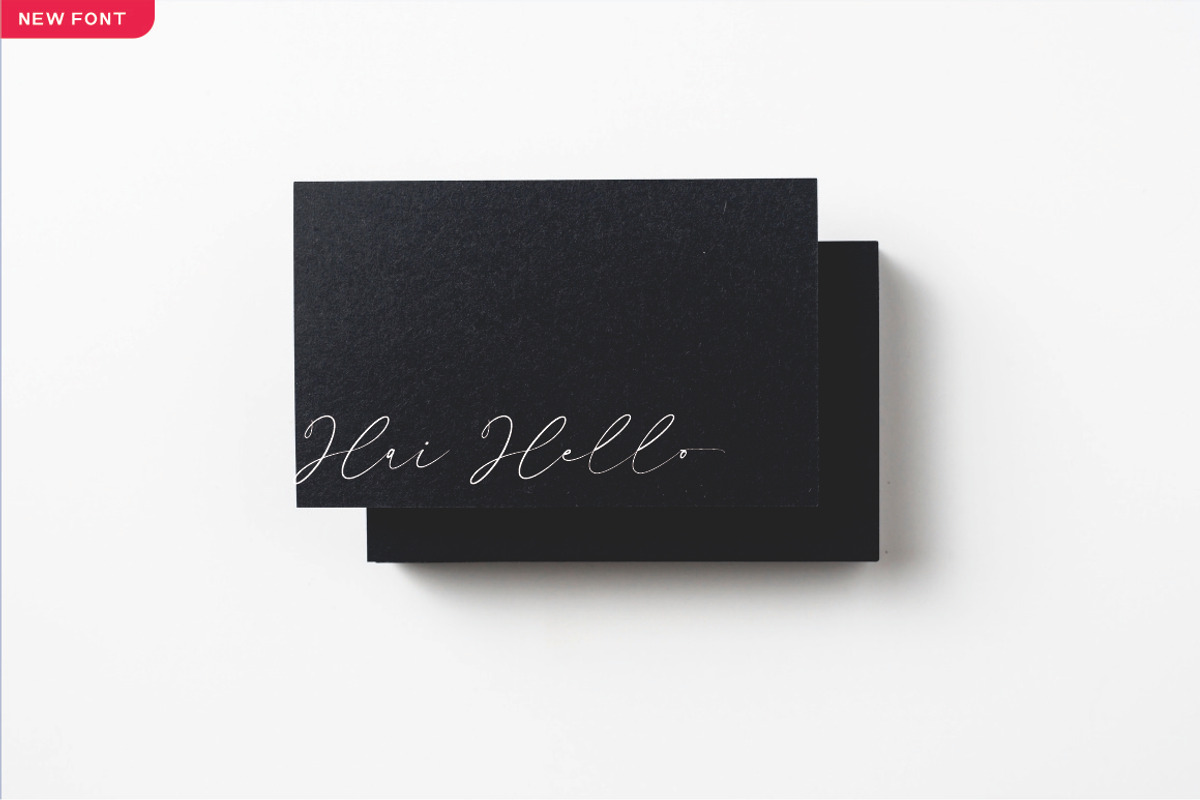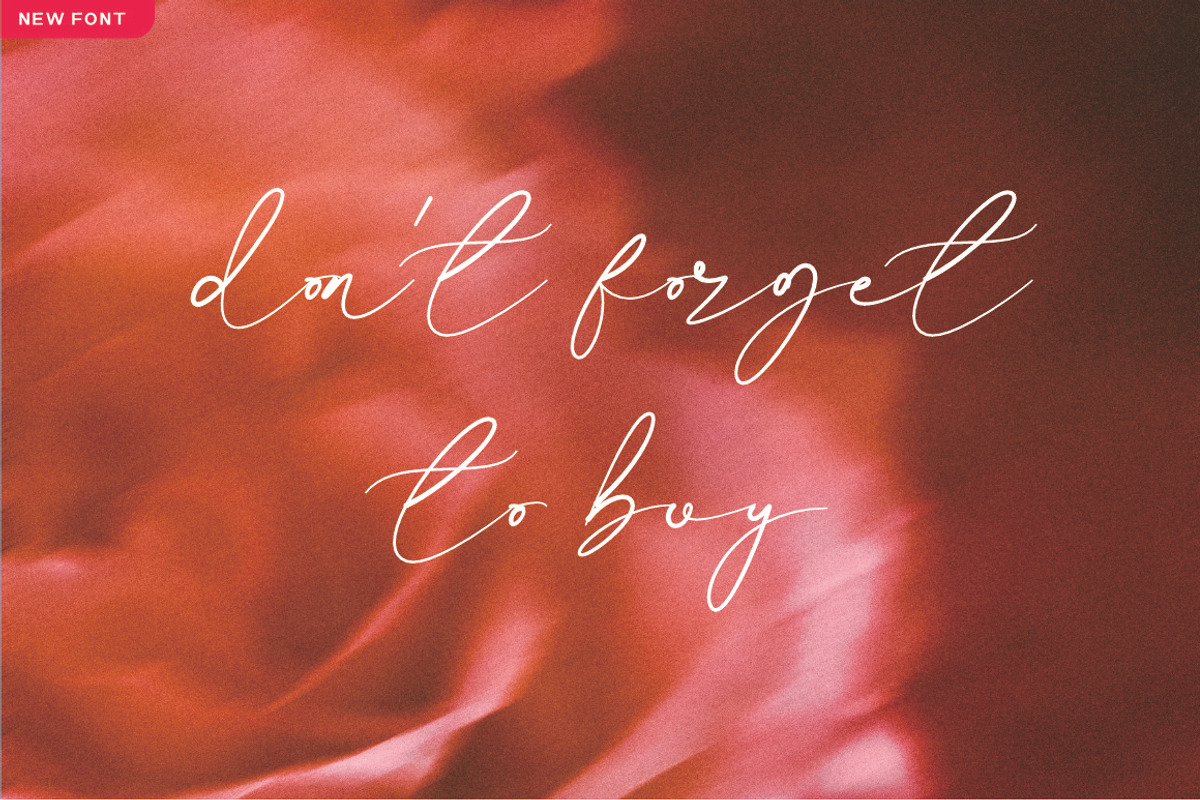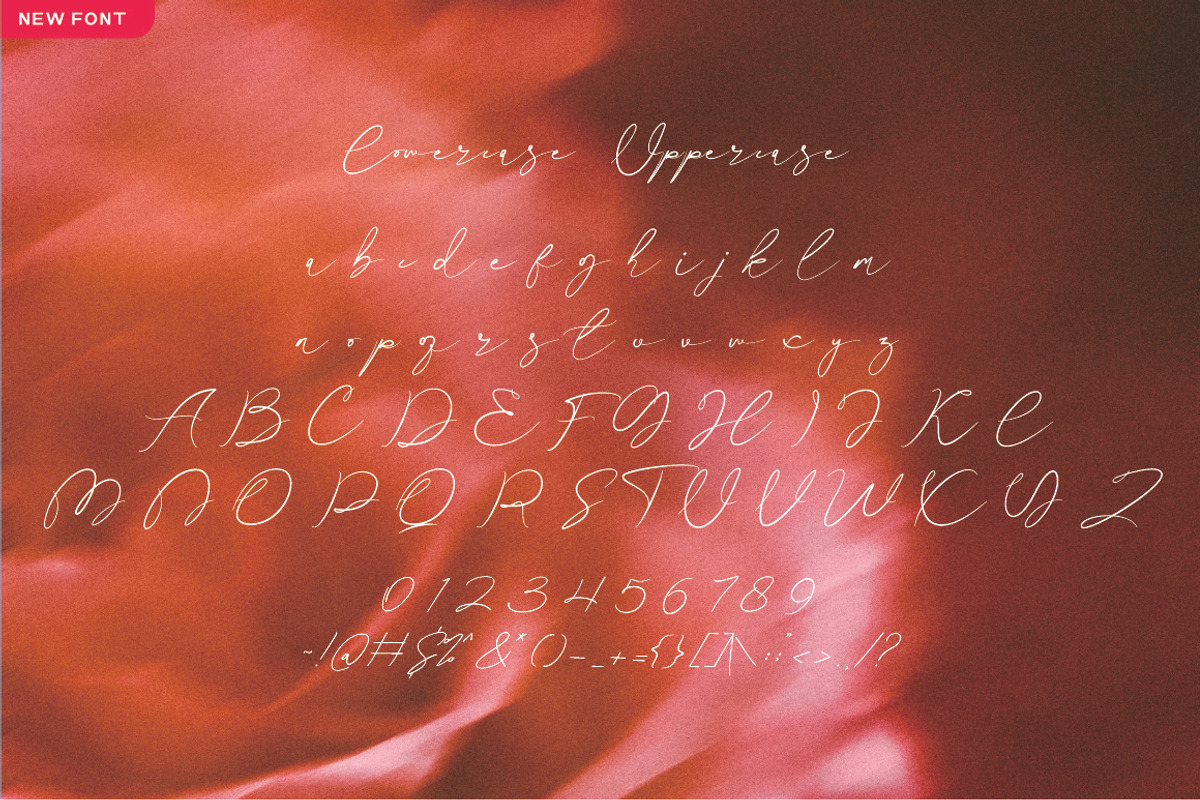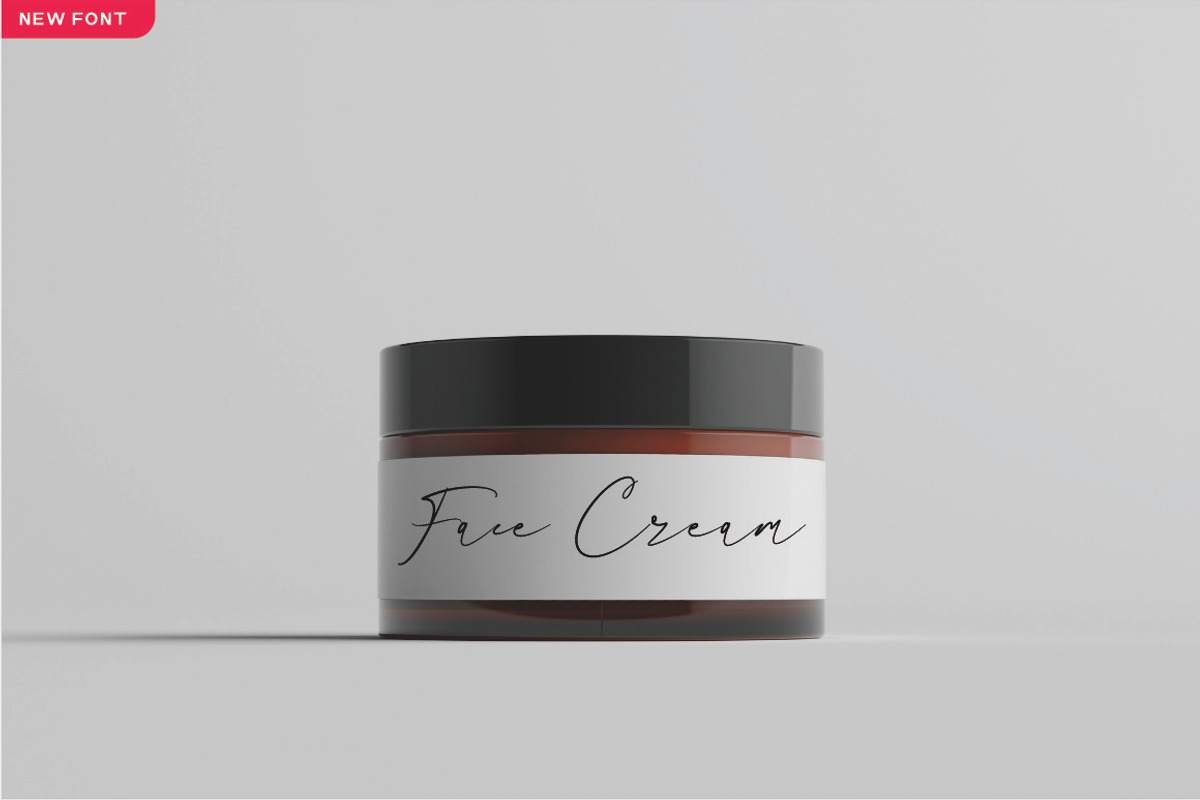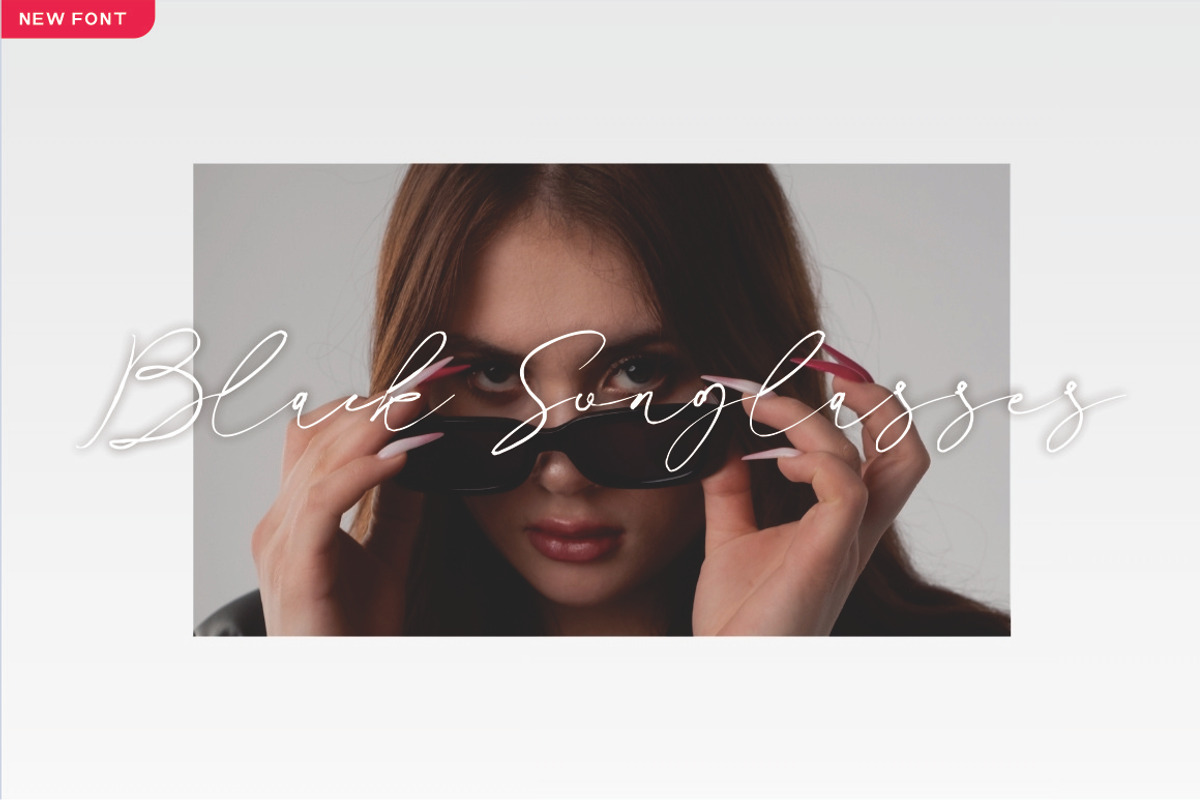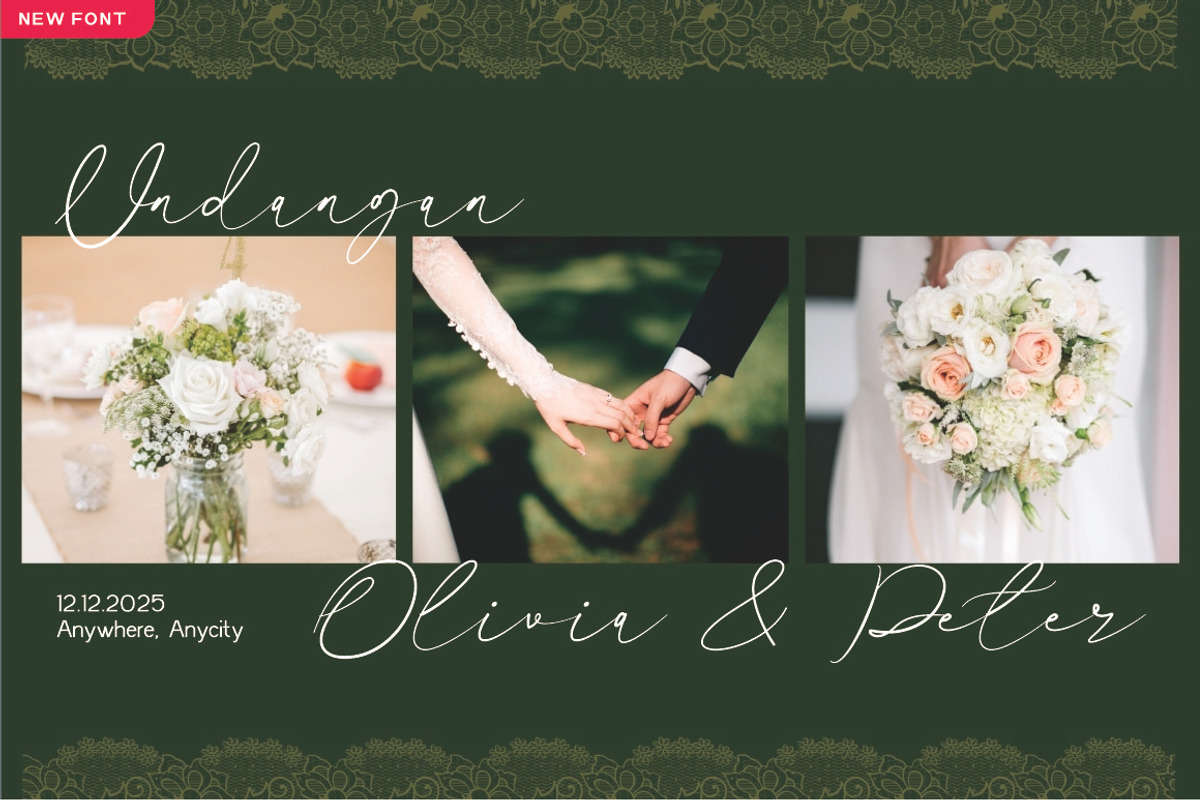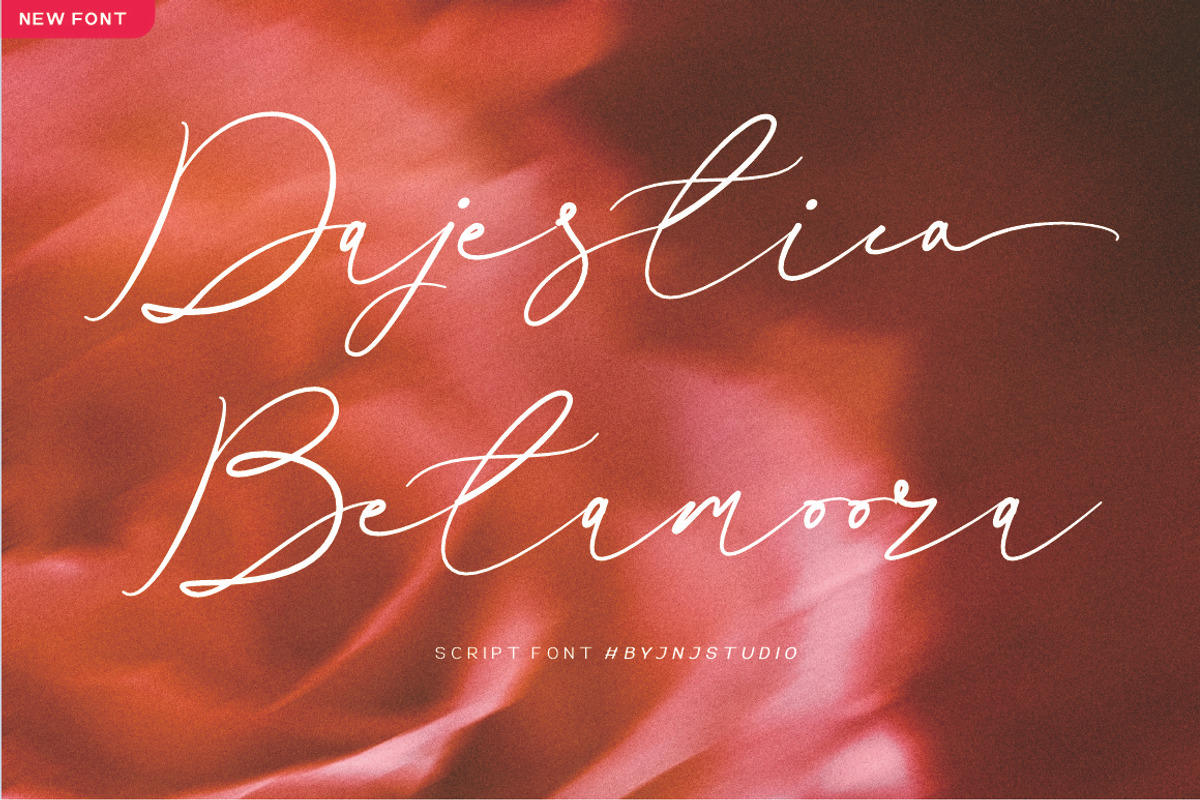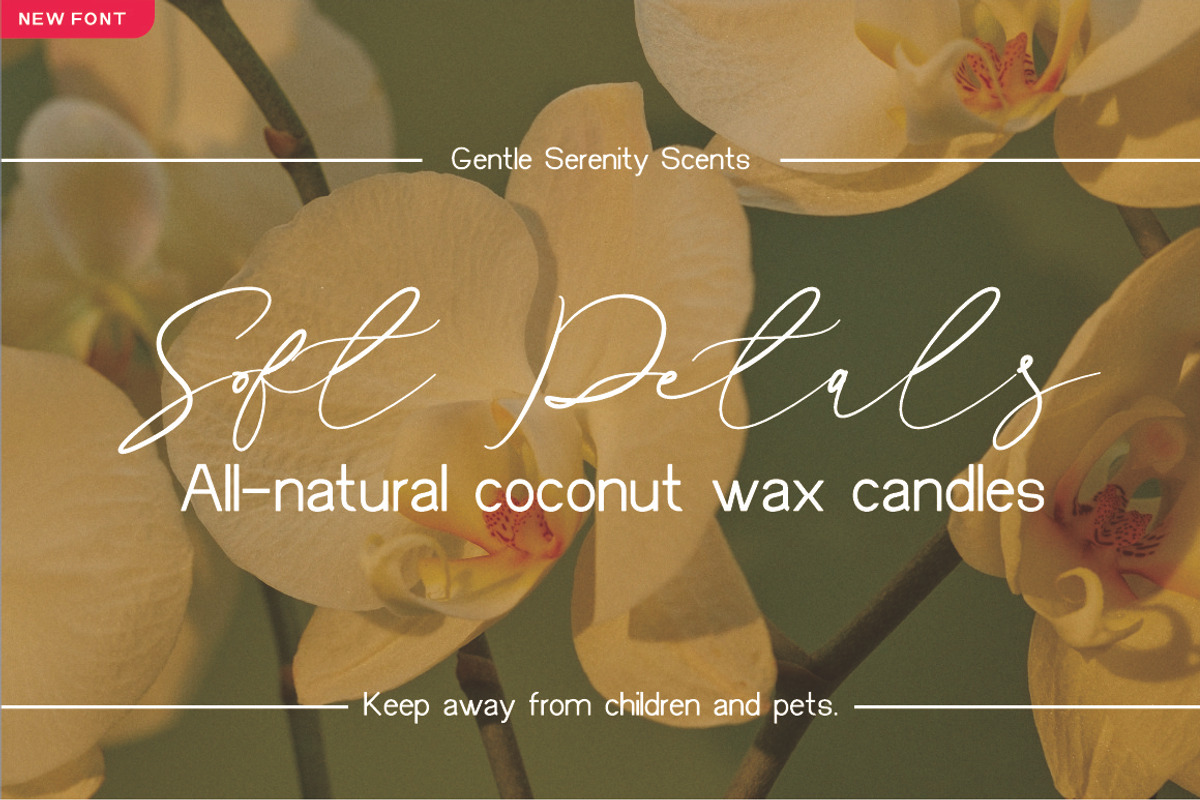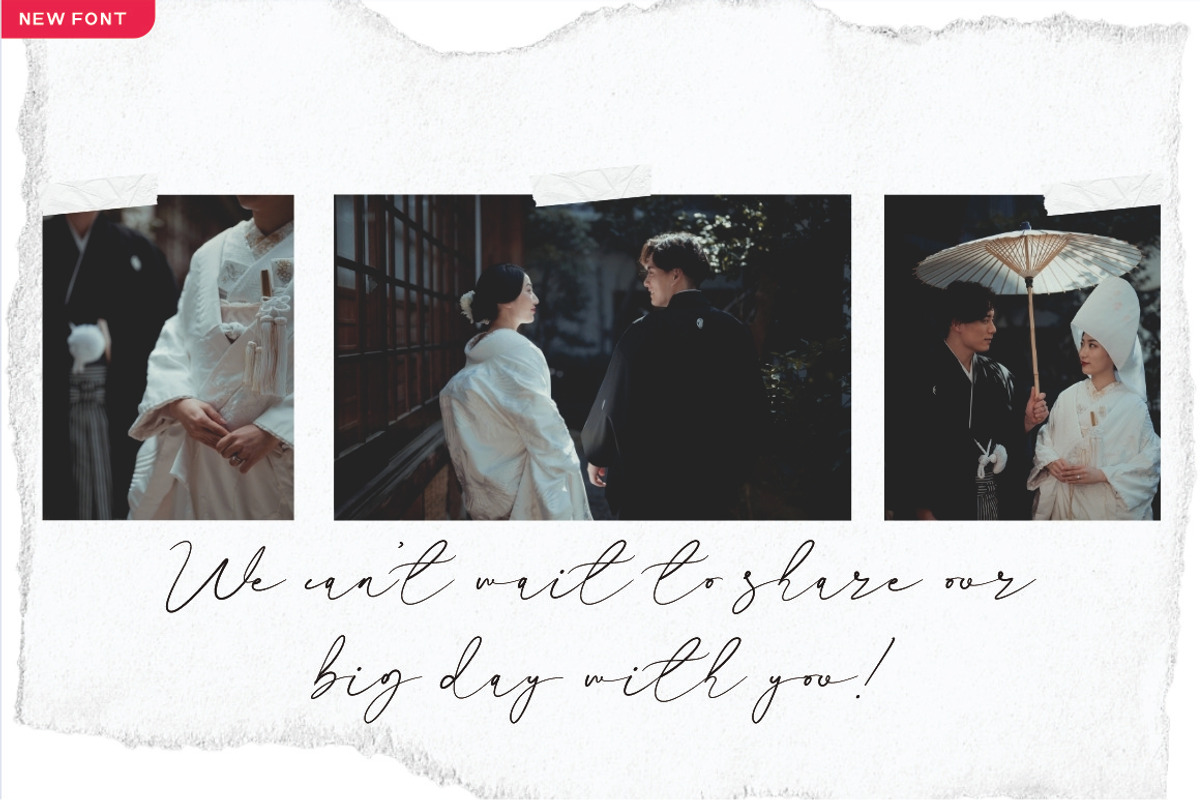
Dajestica Betamoora
Dajestica Betamoora is an elegant and expressive typeface that captures the charm of refined handwriting with a subtle artistic flair. Designed with smooth, flowing curves and delicate strokes, this font brings a sense of sophistication while maintaining a personal, handcrafted feel.
Each letter is carefully shaped to create a harmonious rhythm, making it ideal for branding, invitations, editorial designs, and creative projects that require a touch of grace. The balanced contrast between thick and thin lines enhances readability while preserving its ornamental beauty.
- Stylish uppercase & lowercase letters
- Ideal for personal branding, stationery, and packaging
- Numbers and Punctuation